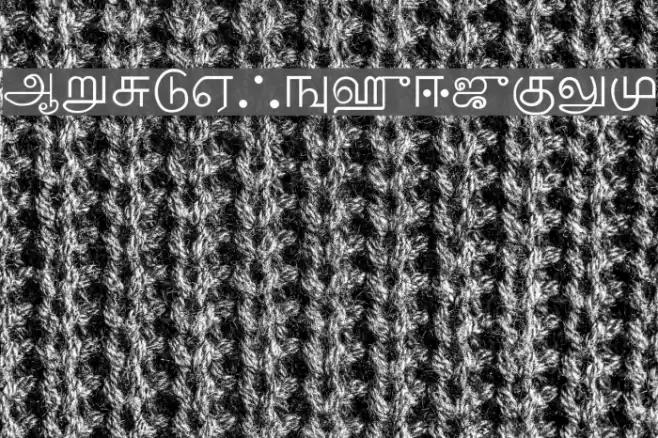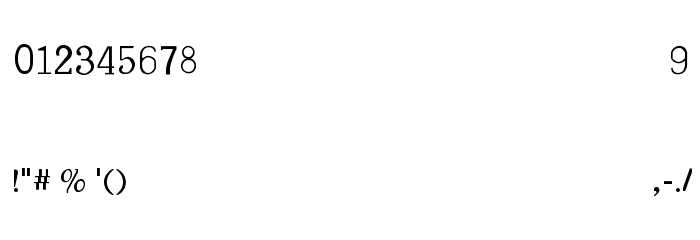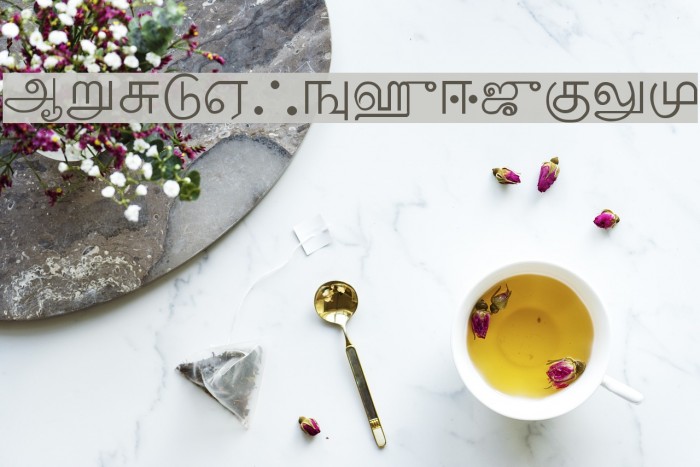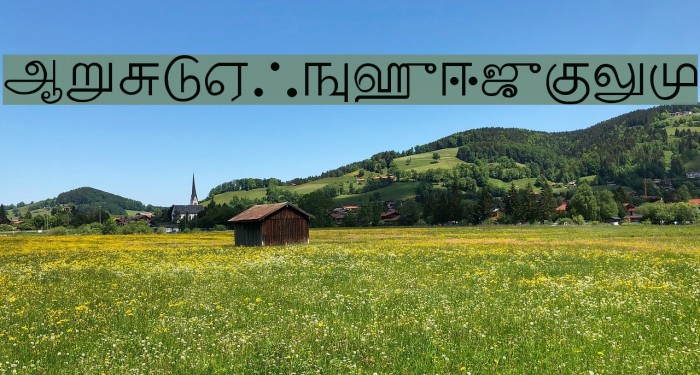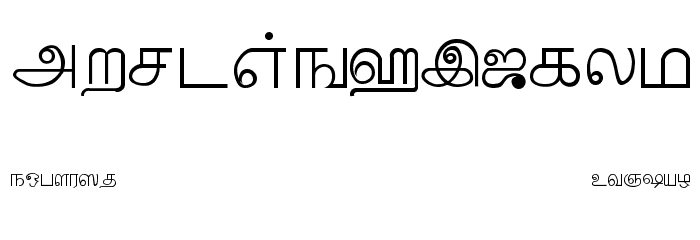
Palladam-Normal Font
Palladam-Normal Description
This font features a clean and modern design with a focus on readability and clarity. The characters are well-defined with a consistent stroke width, giving it a balanced and harmonious appearance. The numerals and special characters are distinct and easy to distinguish, making it suitable for various applications. The overall style is minimalistic, with a touch of elegance that enhances its versatility. The spacing between characters is normal, ensuring a comfortable reading experience. This font is ideal for both digital and print media, offering a professional and polished look.
A clean, modern font with consistent stroke width and balanced design from Non-Latin fonts.
- Proposed Projects: Ideal for websites, corporate branding, print media, and user interfaces.
- Use Case: Body text, User interfaces, Print media